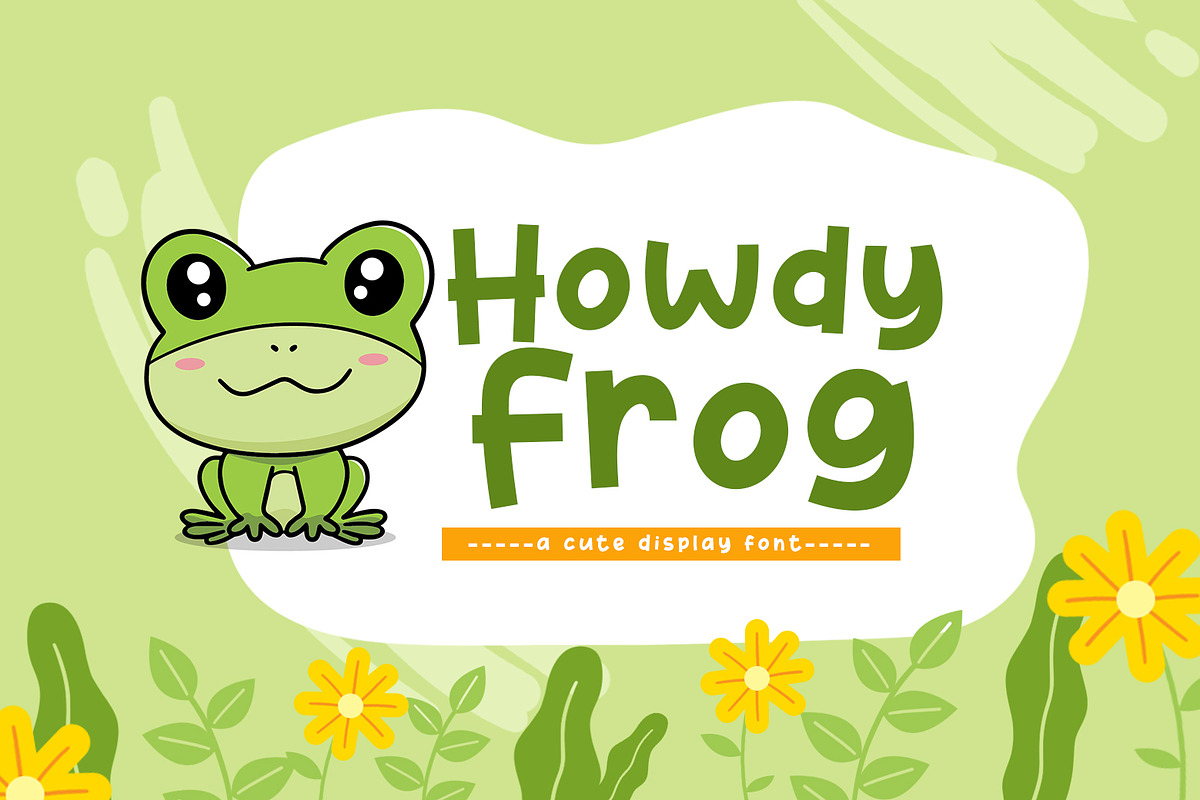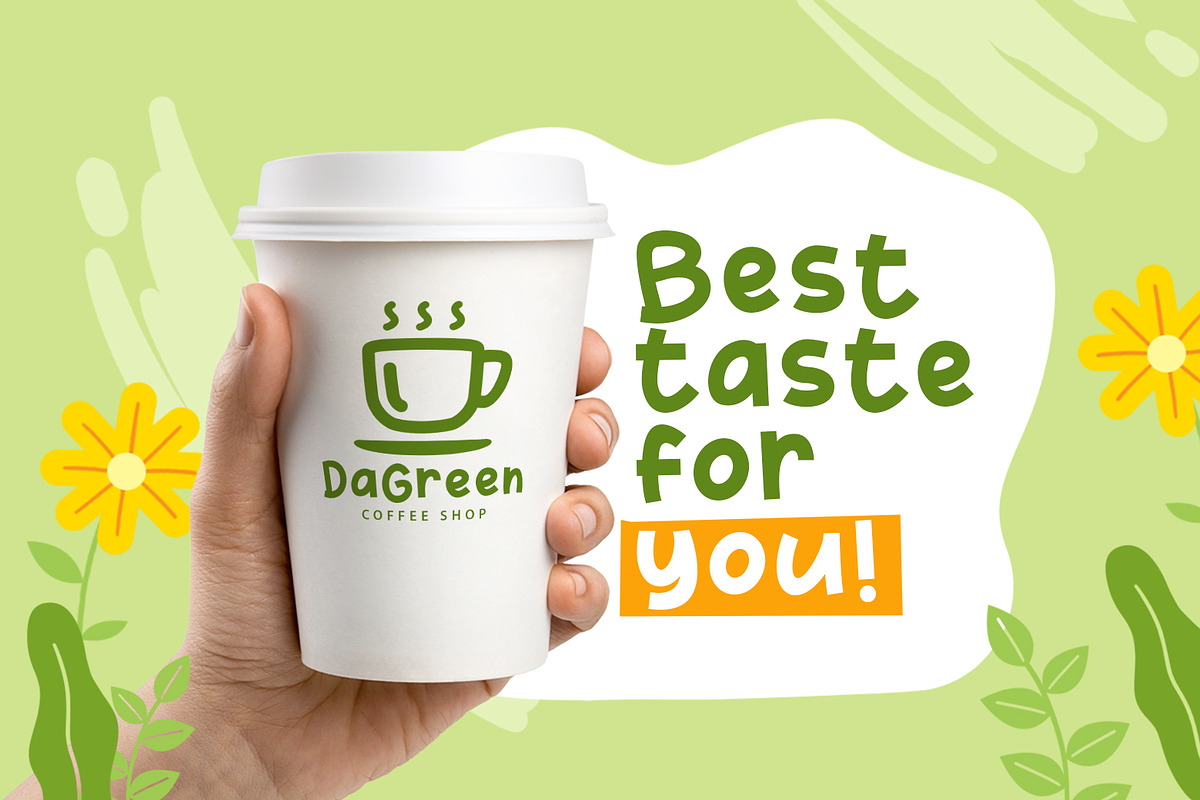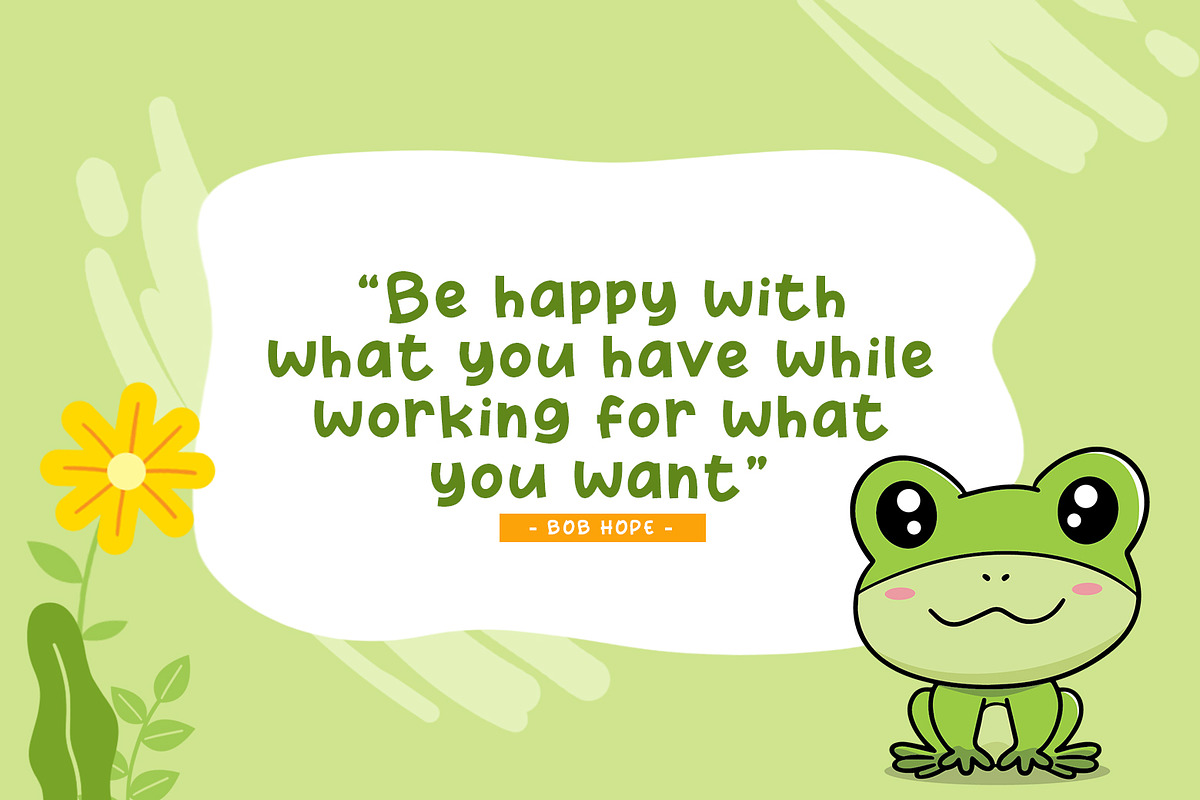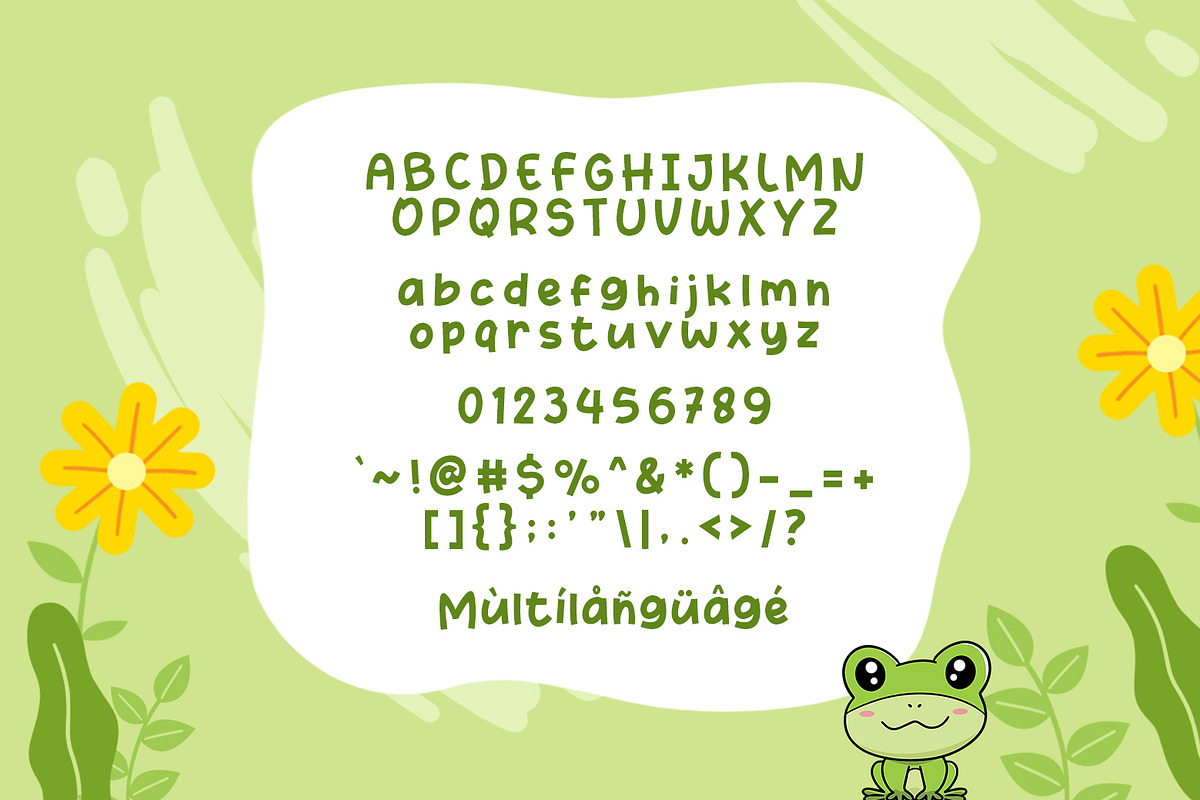
Howdy Frog
Introducing, Howdy Frog font a fun display typeface with cheerful theme for your fun project. Howdy Frog font suitable for logo, branding, greeting card, poster and any design that you create.